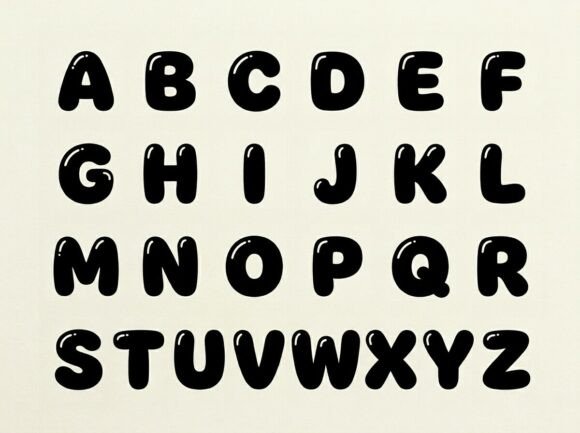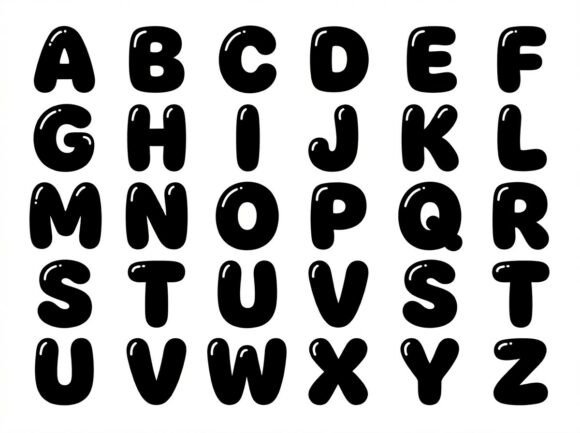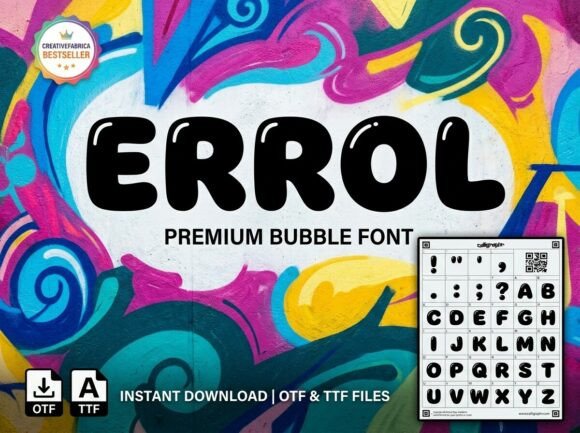
Unleashing the Fun with Errol Font
Enter Errol Font, a delightful bubble typeface designed to bring a dash of handcrafted joy to your creative projects. With its bold, chunky letterforms and soft, rounded contours, Errol Font is the perfect companion for designers looking to infuse their work with a sense of whimsy and approachability.
Whether you’re designing for a youth-oriented campaign or a lighthearted creative brand, the Errol Font delivers a sense of professional, whimsical beauty that’s sure to delight your audience. Its versatility and charm make it an invaluable addition to any designer’s toolkit, and we can’t wait to see the amazing things you create with it!
- Unique Characteristics: Errol Font features a unique, modern design with clean lines and geometric shapes, making it perfect for digital and print applications.
- Kerning and Ligatures: The font features advanced kerning and ligature pairs, ensuring that text sets look professional and polished, even at small font sizes.
- Unique flair: Errol Font has a distinct, vintage feel that sets it apart from more common font styles.
- High legibility: The font is easy to read, even at smaller sizes, making it suitable for a wide range of applications.
- Good font weight variety: Errol Font comes with multiple weights, allowing designers to add depth and visual interest to their designs.
- Not ideal for headings: While Errol Font is great for body text, it may not be the best choice for headings, where a more dramatic font is often preferred.
Overall, I think the Errol Font is a great choice for designers who want a unique, high-quality font for their projects. While it has some limitations, its unique flair and high legibility make it a solid addition to any design arsenal.